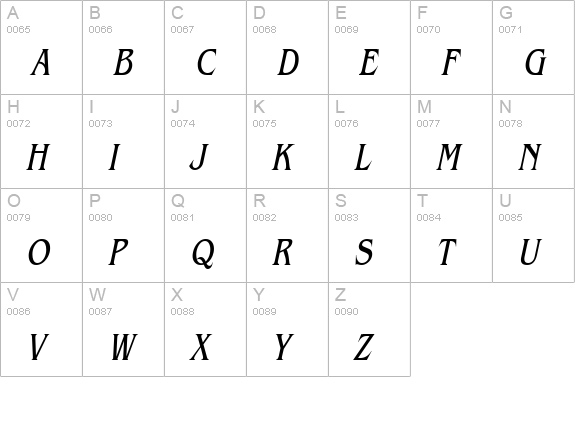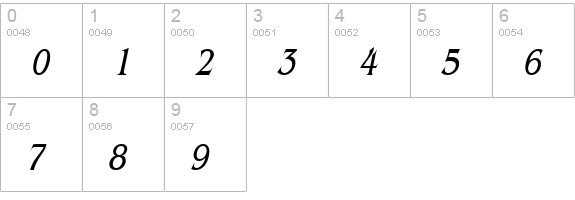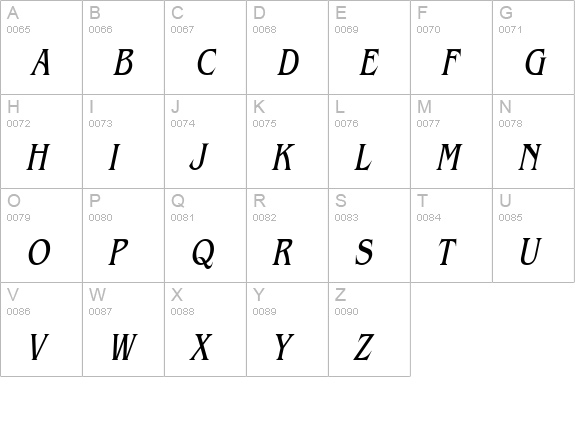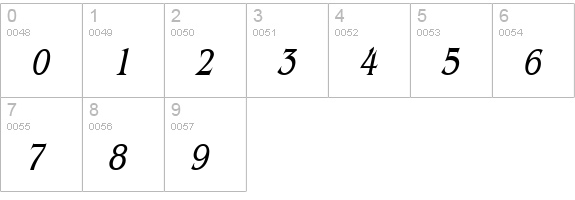
Bangle Thin Italic is a delicate, low-contrast, italic variant in the Bangle typeface family \xE2\x80\x94 well suited to fashion editorial, minimal branding, and high-contrast display.
Introducing the elegant and sophisticated Bangle Thin Italic font, a versatile typeface that exudes grace and style. Its slender and slanted design adds a touch of modernity to any project, making it perfect for fashion magazines, luxury branding, and upscale designs. The delicate curves and refined details of this font make it a standout choice for those seeking a chic and contemporary look. What's even better is that Bangle Thin Italic font is available for free download at FontsMarket.com. With just a few clicks, you can enhance your design projects with this exquisite font without having to spend a dime. Embrace the beauty and sophistication of Bangle Thin Italic font today and elevate your creations to new heights of elegance and refinement.